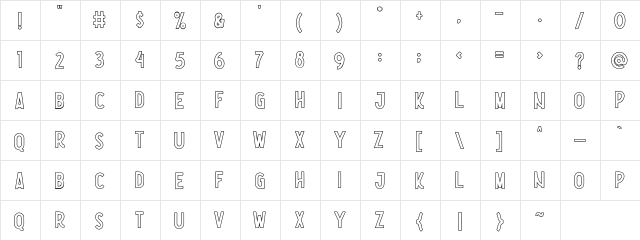
Nootdorp Regular
Design Context for Nootdorp Typeface
Nootdorp is a composed and adaptable typeface that performs quietly and consistently across a wide range of design contexts.